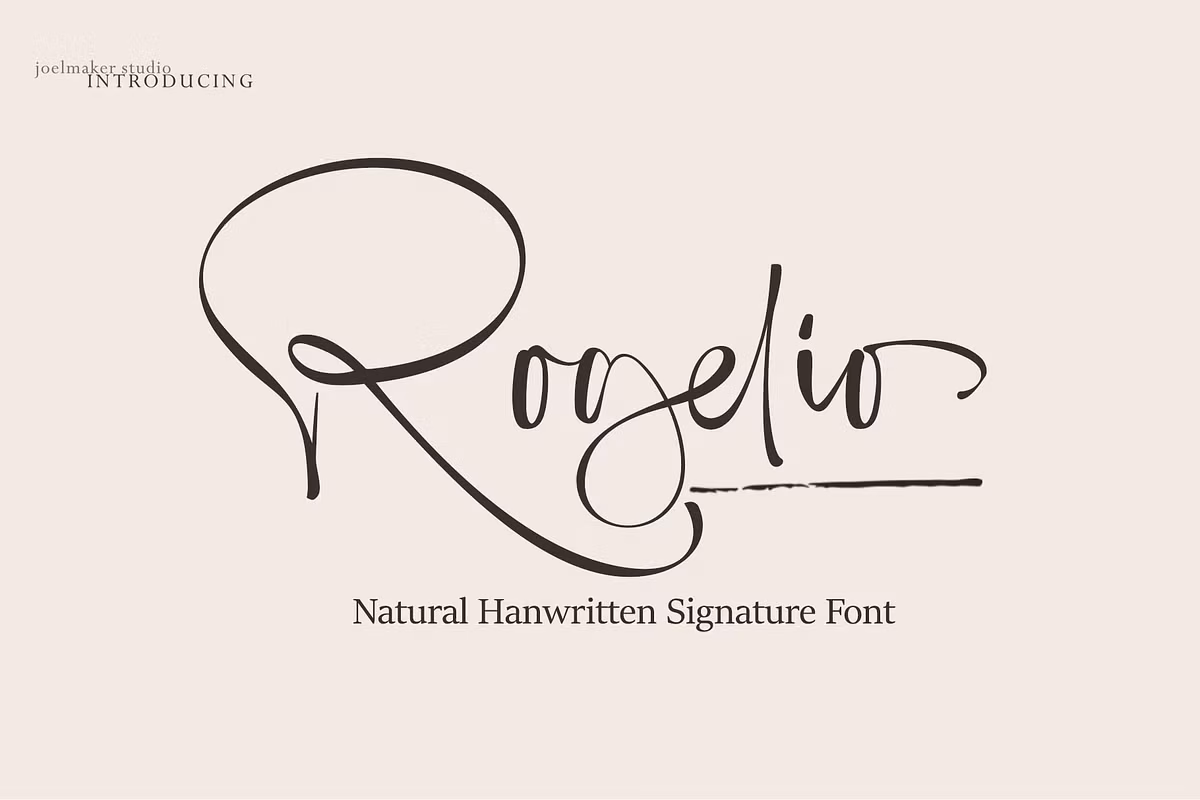
Rogelio Script Font Free Download is a flowing, elegant handwritten typeface that brings charm and sophistication to your designs. With its smooth curves, delicate swashes, and refined letterforms, this font is ideal for wedding invitations, branding, product packaging, greeting cards, and upscale social media content. It captures the natural beauty of modern calligraphy with a graceful and romantic feel.
Perfect for designers seeking a luxurious, handcrafted touch, Rogelio Script maintains both beauty and readability. Whether you're designing for a bridal brand or creating heartfelt messaging, this font adds a timeless personal flair.